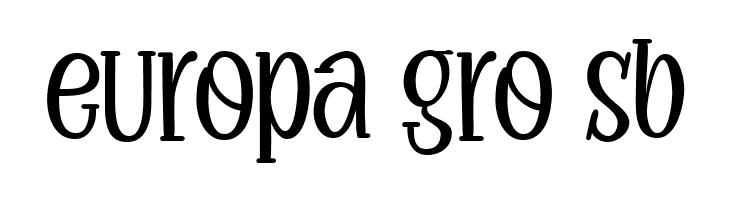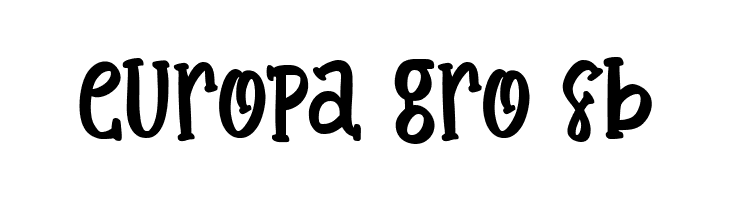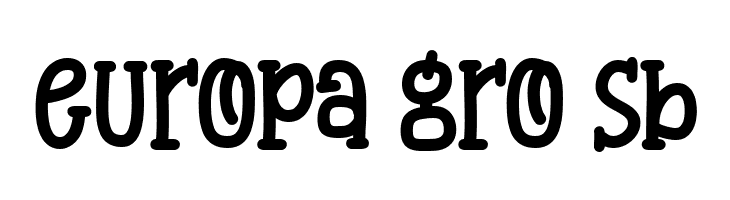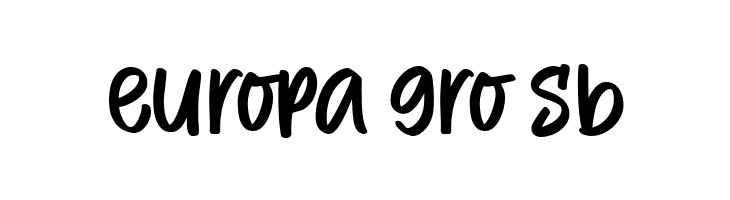
( Fonts by Niskala Huruf )
A playful and whimsical font with bold, slightly condensed characters.
( Fonts by Niskala Huruf )
A playful, hand-drawn font with tall, narrow letters and a whimsical style.
( Fonts by Niskala Huruf )
A playful, handwritten-style font with bold, irregular characters.
( Fonts by Niskala Huruf )
A playful, hand-drawn style font with consistent stroke width and a whimsical appearance.
( Fonts by Niskala Huruf )
A bold, playful font with a handcrafted, whimsical style.
( Fonts by Niskala Huruf )
A playful, hand-drawn font with uneven strokes and a whimsical style.
( Fonts by Niskala Huruf )
A playful, hand-drawn font with bold, energetic characters.
( Fonts by Niskala Huruf )
A playful, bold font with rounded, decorative letterforms.
( Fonts by Niskala Huruf )
A bold, playful handwritten font with a casual and friendly style.
( Fonts by Masa Aska Sanurumi )
A playful, bold, hand-drawn style font with a whimsical and casual feel.